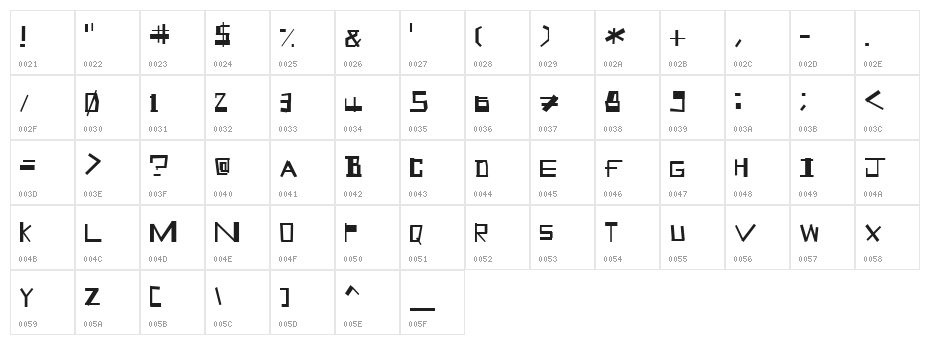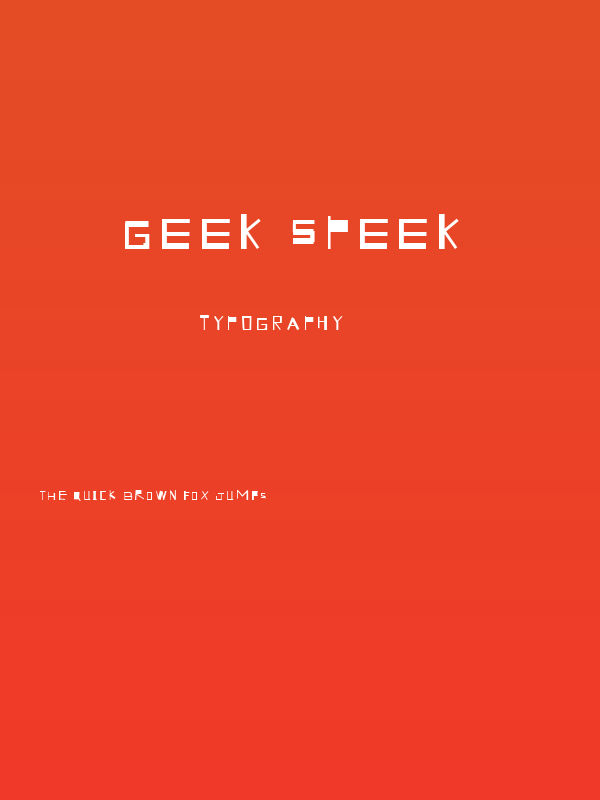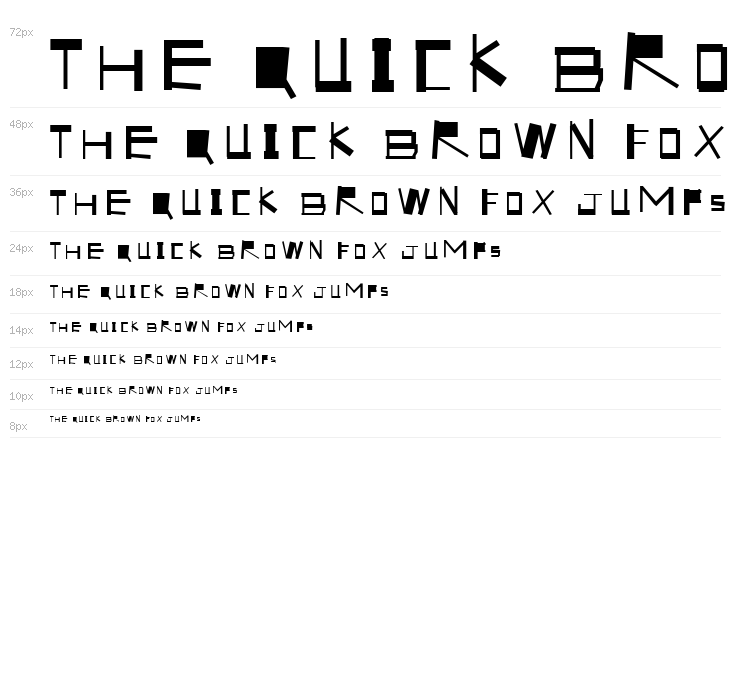
Geek Speek Font
Geek Speek Description
This font features a bold, geometric design with a futuristic and tech-inspired aesthetic. The characters are constructed with sharp angles and straight lines, giving them a digital, almost robotic appearance. The uppercase and lowercase letters maintain a consistent style, with some characters exhibiting unique cuts and slashes that add to the font's edgy look. The numbers and special characters follow the same design principles, ensuring uniformity across the typeface. This font's distinctive style makes it stand out, ideal for projects that require a modern and unconventional touch.
| Proposed Projects | Ideal for tech-related branding, video game graphics, sci-fi posters, and digital media. |